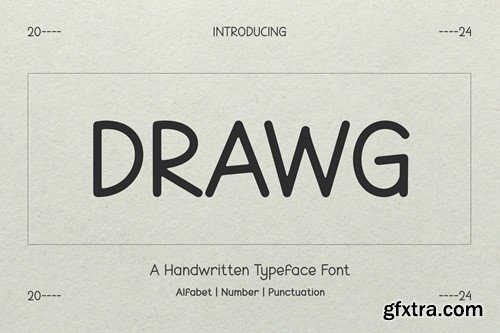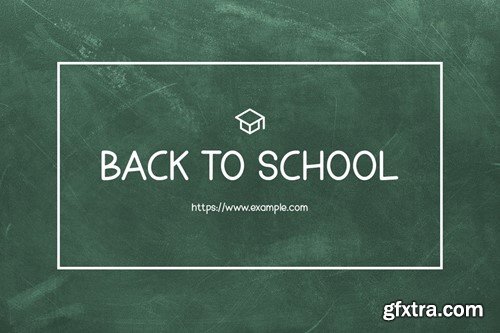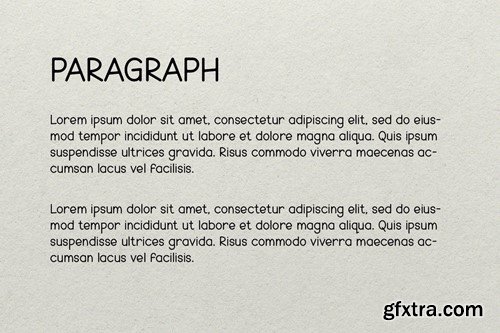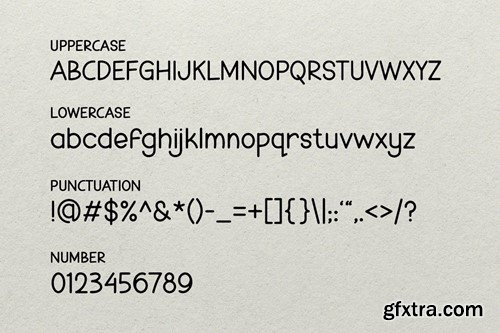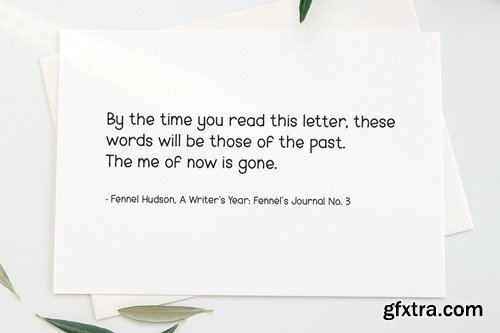
DRAWG - 一种手写字体;TVUJ227
DRAWG - A Handwriting Typeface Font
DRAWG is a unique display typeface perfect for titles, large text, branding, logotypes & graphic design purposes such as posters, pamphlets, and advertisements. This letter font can be a great choice for creating amazing logos, promotional content, and marketing presentations that can bring uniqueness and freshness at its best. FEATURES TTF/OTF/WOFF Uppercase and Lowercase letters Numbering and Punctuations Support Adobe Illustrator, Adobe Photoshop, Adobe InDesign, also works on Microsoft Word For buyers, thank you for using our font. We hope our work can help you create creative ideas.